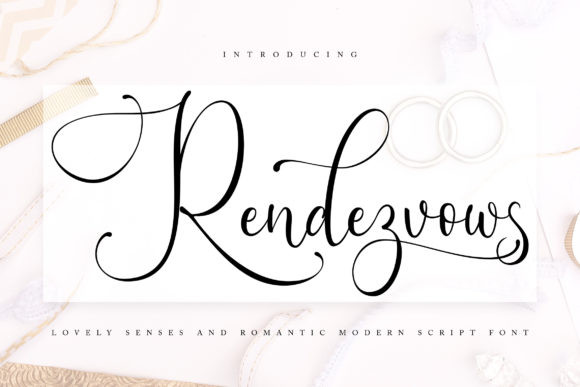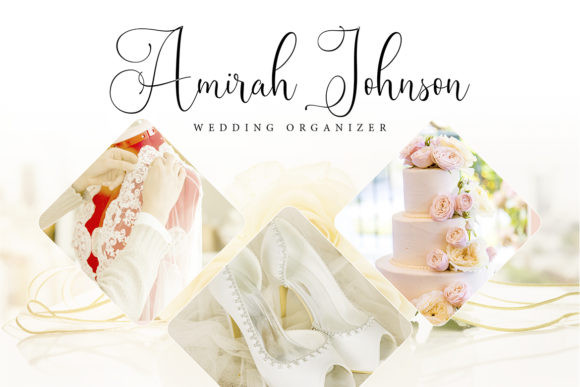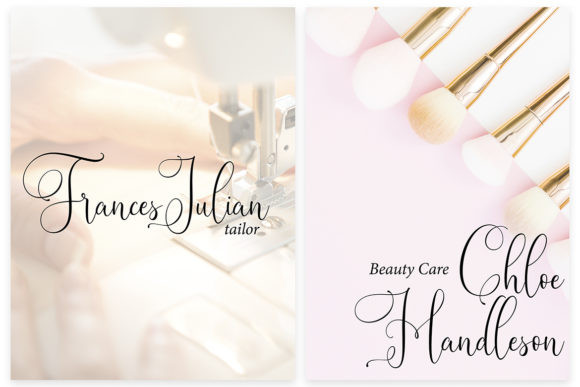
Rendezvouws Font
Rendezvouws combines elegant swashes and a contemporary approach to design. Use this unique font to make any creative idea stand out.